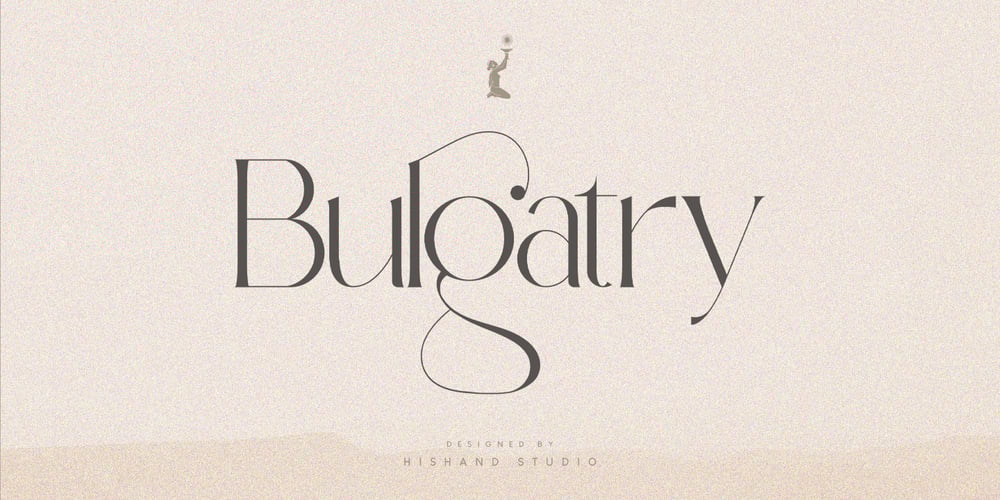
Bulgatry
Bulgatry font
Bulgatry Font Family was designed by Putu Dody Permana and published by Hishand Studio. Bulgatry contains 3 styles and family package options. Elegant look font of Bulgatry. a modern serif font family that drawn inspiration from the elegant of Bali, classy, modern but classic at the same time. just have a look at this beautiful handcrafted serif typeface. Perfect logo, branding, invitations, stationery, wedding designs, social media posts, and much more.Complete with- ligatures- alternates- regular- italic- icon- kerning- multilingual support